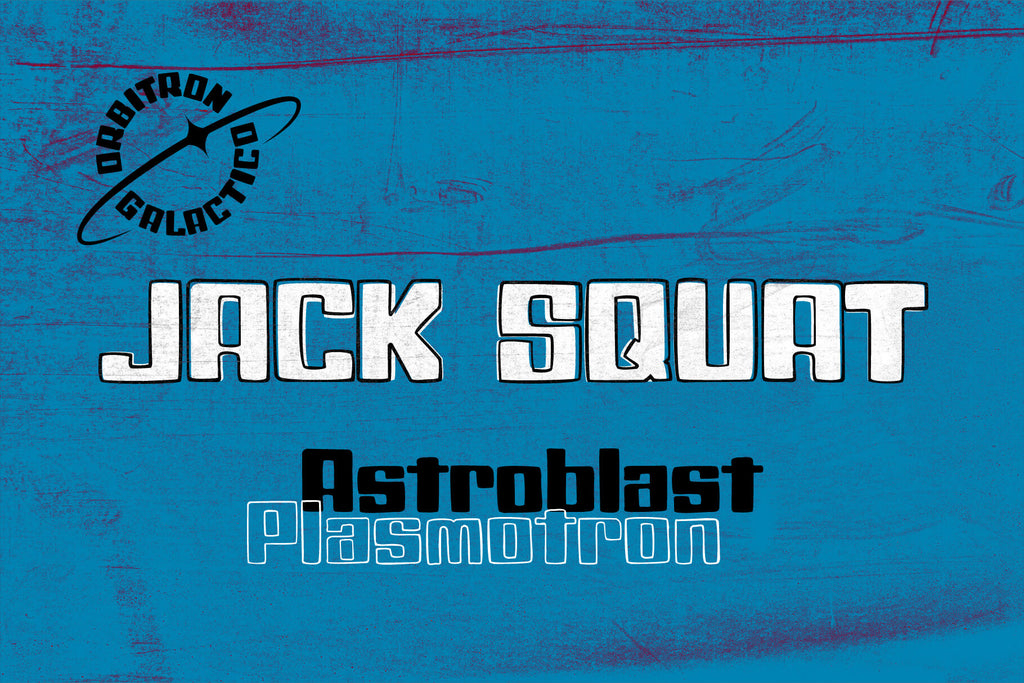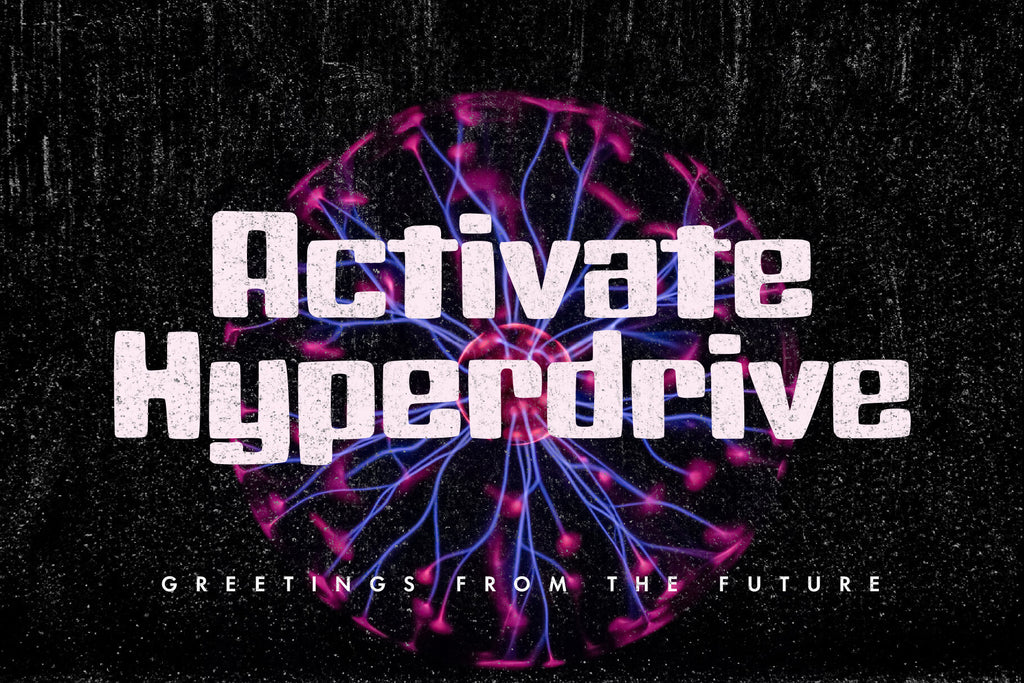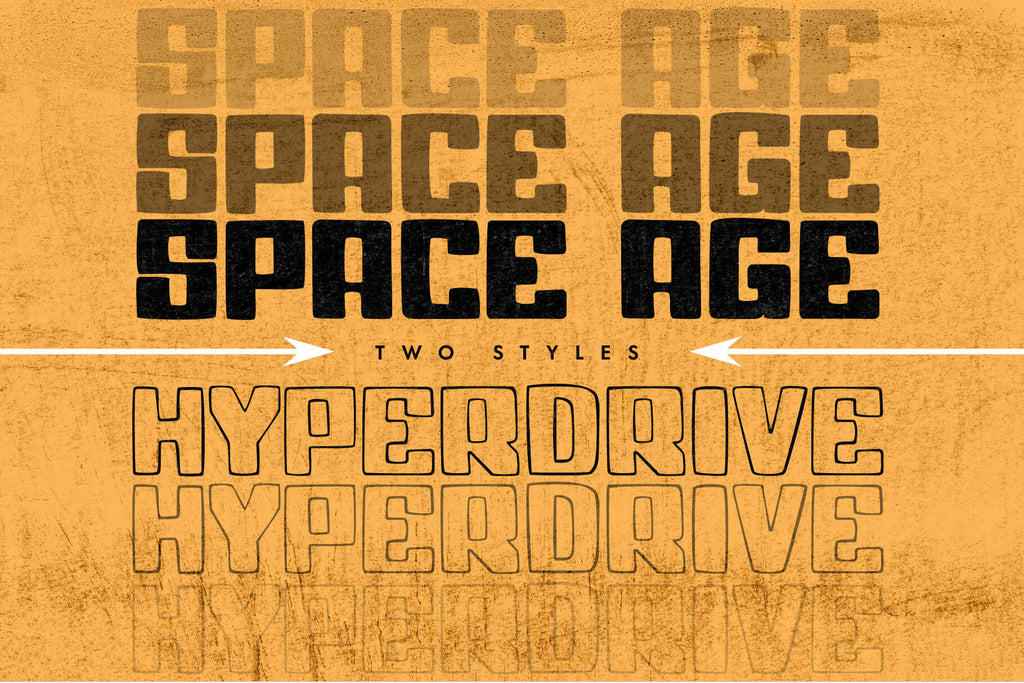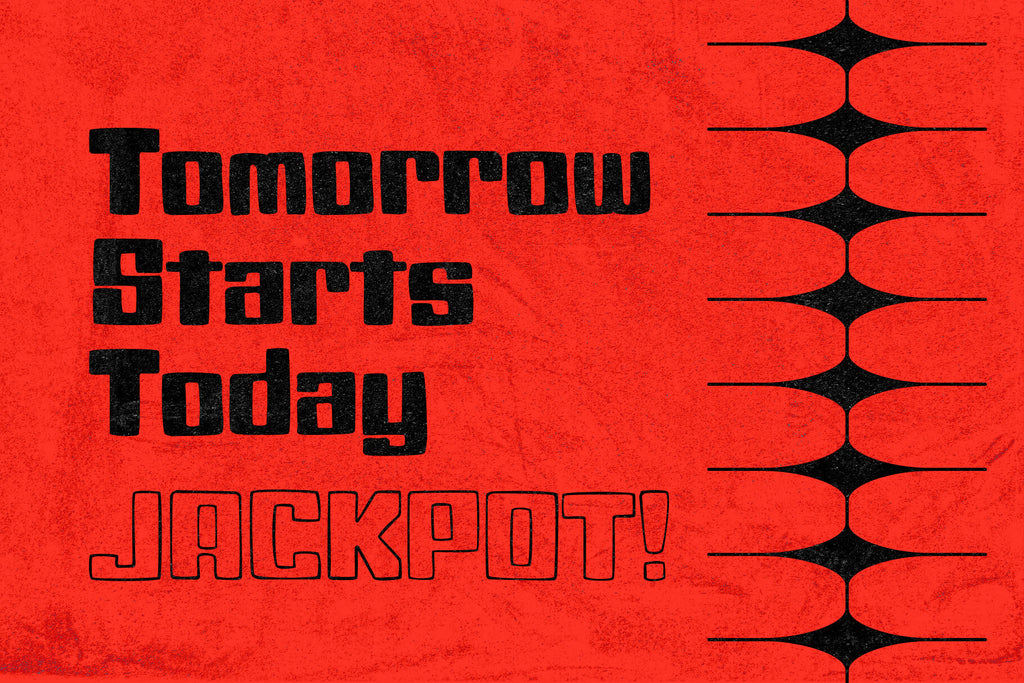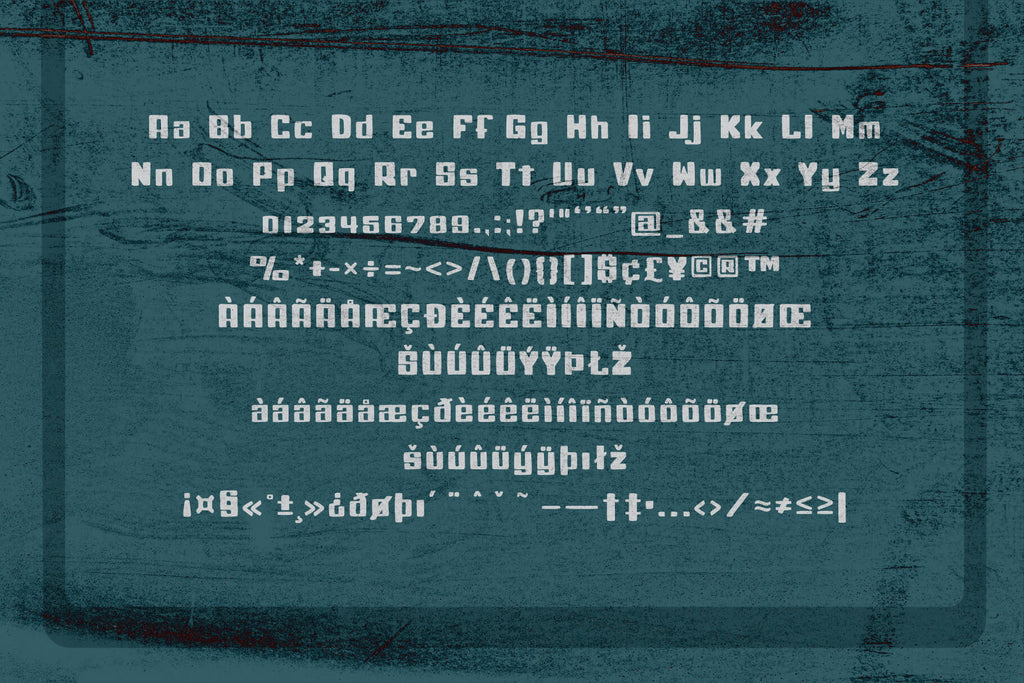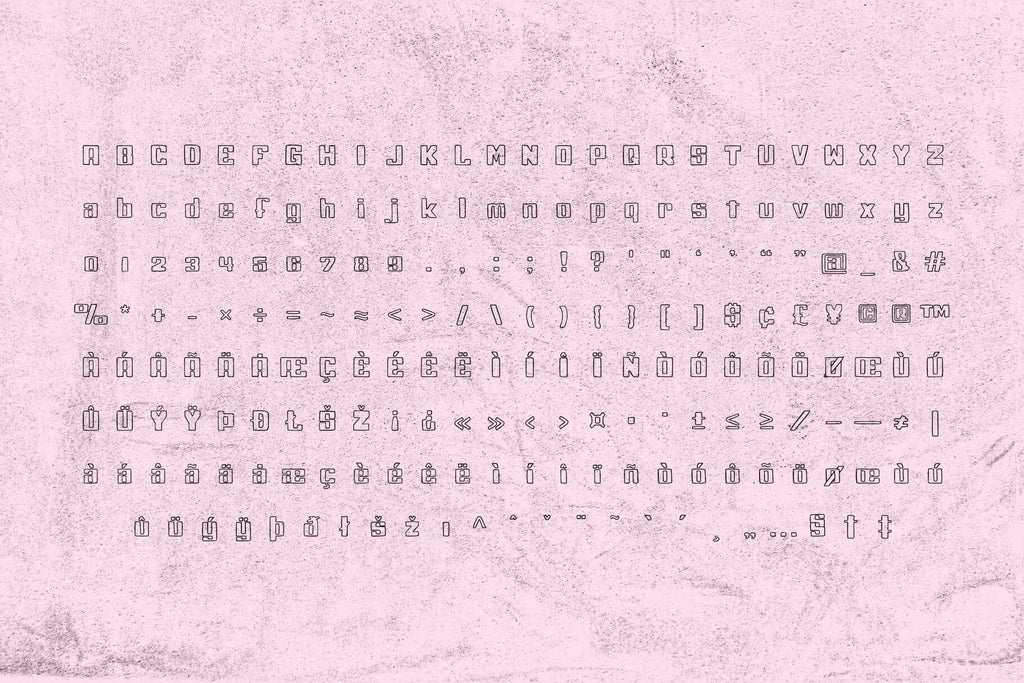
Jack Squat Typeface
Jack Squat is a loud, loose, and unapologetically organic display font built to make a statement. Every character is hand-drawn with zero straight lines, giving the typeface a raw, human energy that feels both retro and futuristic at the same time.
Influenced by mid-century Googie architecture, the brutal sports dystopia of Rollerball (1975), and the iconic typographic attitude of the Beastie Boys’ Hello Nasty, Jack Squat channels sci-fi optimism with a gritty, analog edge.
The family includes Fill and Outline versions that work seamlessly together or on their own. With 218 characters, multilingual support, alternates, and ligatures, Jack Squat is built for expressive typography—ideal for posters, album art, branding, apparel, headlines, and experimental layouts.
Jack Squat doesn’t whisper. It broadcasts.